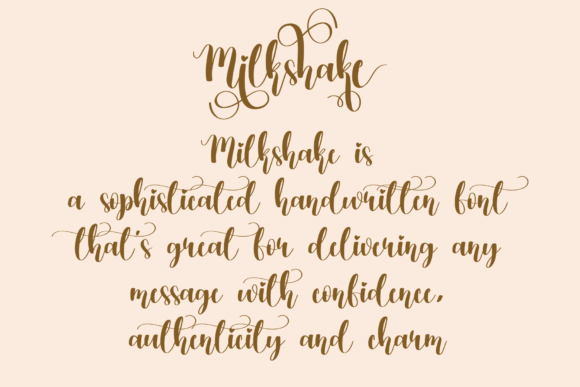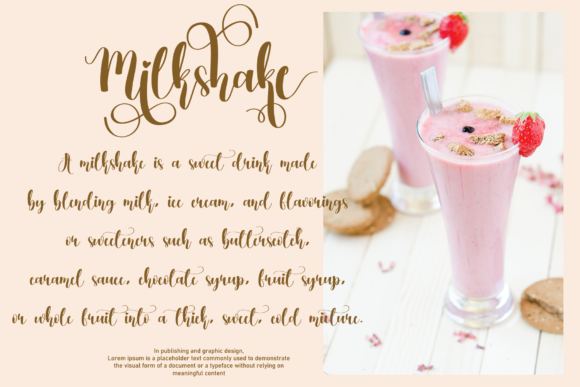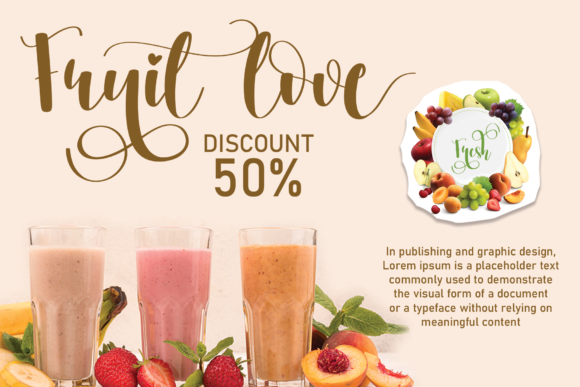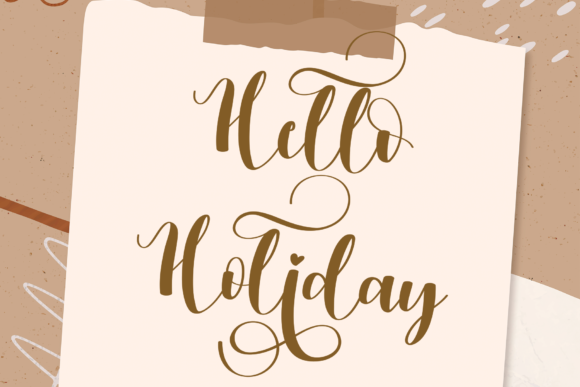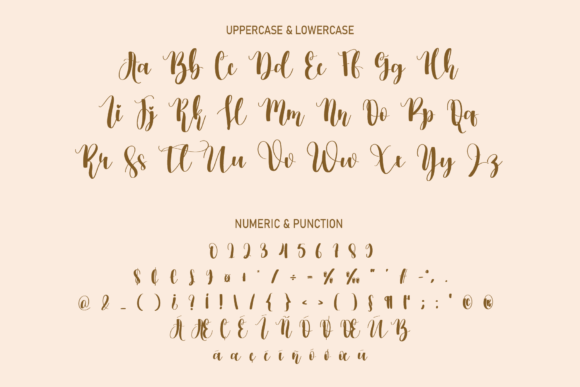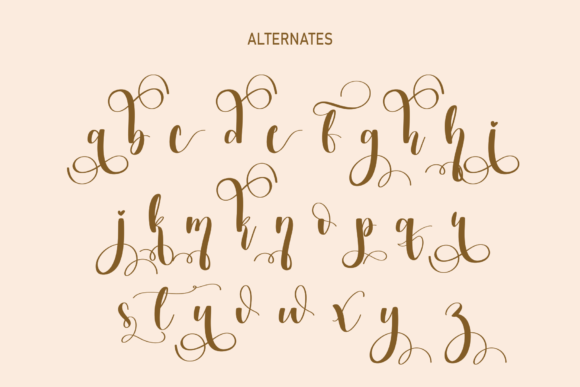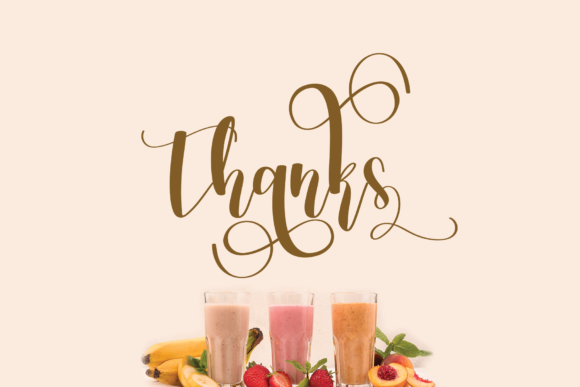
Milkshake Font
Milkshake is a romantic and sweet calligraphy typeface with characters that dance along the baseline. It will add a luxury spark to any design project that you wish to create! This font is PUA encoded which means you can access all of the amazing glyphs and ligatures with ease!